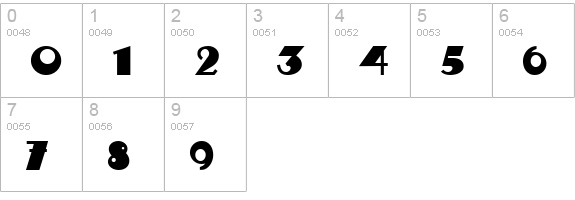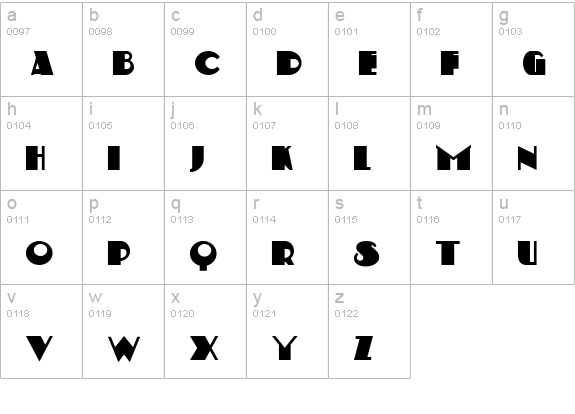
Kerfuffle NF Font Details
Kerfuffle NF font is a whimsical and playful typeface that exudes charm and character. With its quirky shapes and unique letterforms, this font is perfect for adding a touch of fun to your design projects. Whether you're creating invitations, posters, or branding materials, Kerfuffle NF will bring a sense of whimsy to your work. What's even better is that Kerfuffle NF is available for free download at FontsMarket.com. That's right, you can access this delightful font at no cost, making it a valuable addition to your font library. Don't miss out on the opportunity to add Kerfuffle NF to your collection and infuse your designs with a playful spirit.